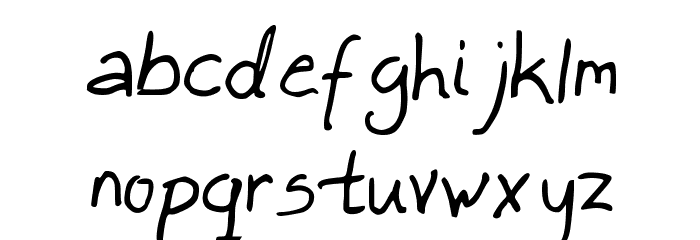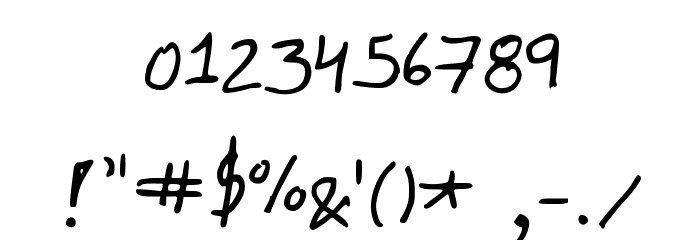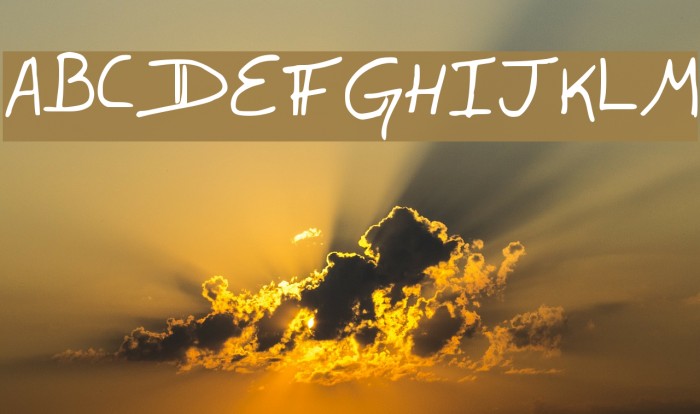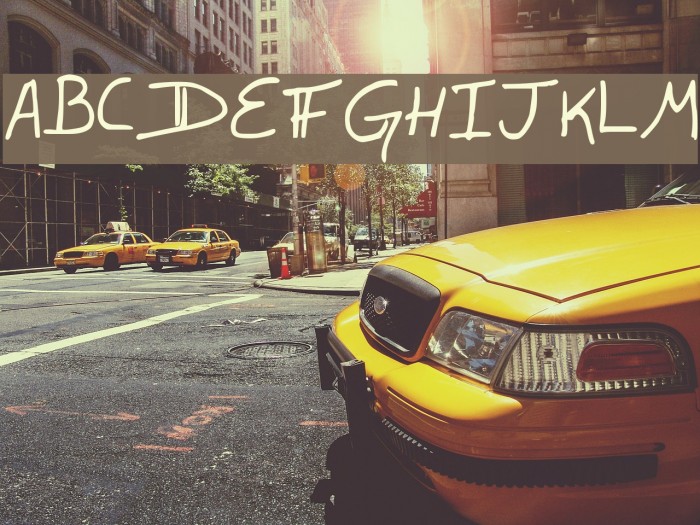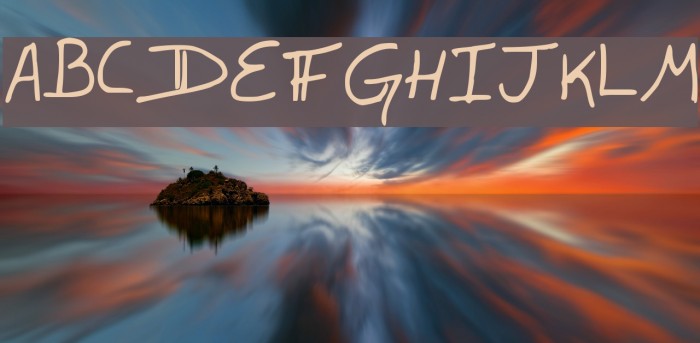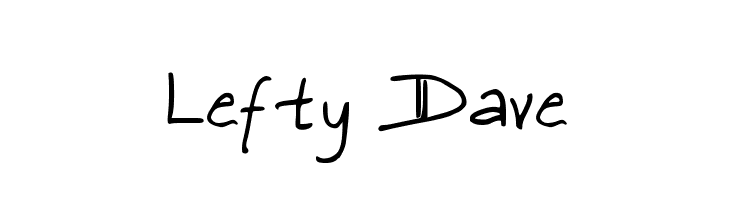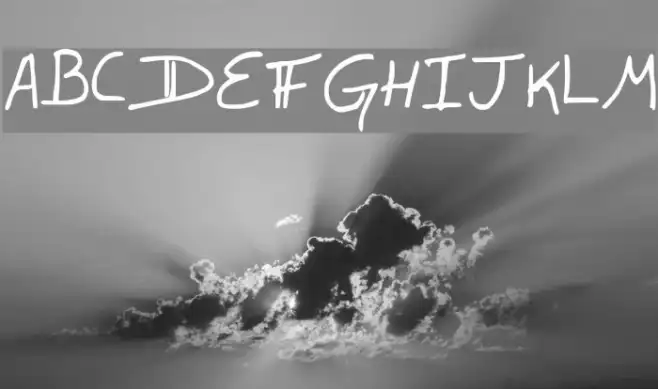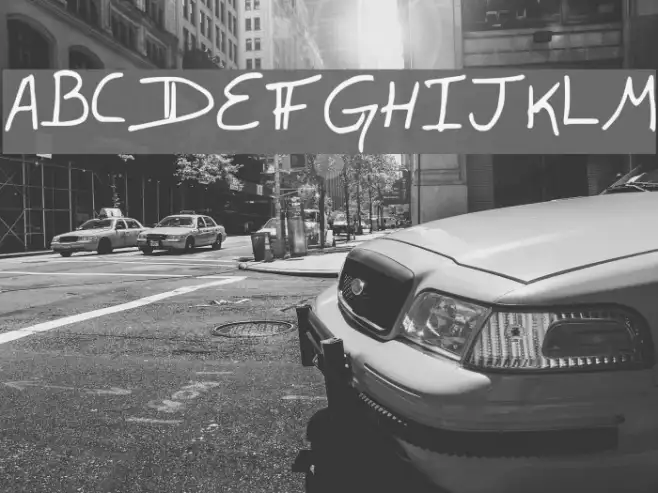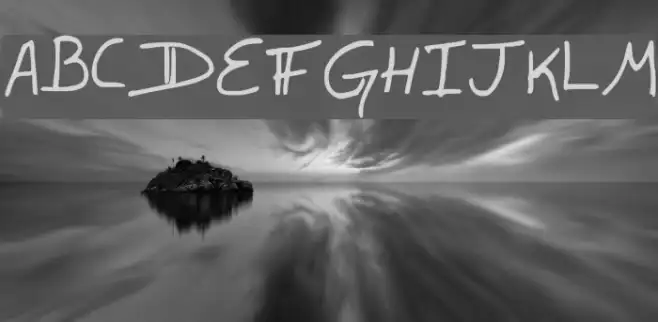
Lefty Dave Font
This font exudes a casual and playful handwritten style, characterized by its uneven strokes and slightly tilted letters, giving it a dynamic and personal touch. The uppercase letters are bold and slightly larger than the lowercase, maintaining a consistent flow throughout. The numbers and special characters follow the same handwritten aesthetic, adding to the font's charm. Its informal appearance makes it suitable for projects that require a personal or creative touch, such as greeting cards, invitations, or artistic branding. The font's unique style captures attention while remaining legible, making it versatile for various design needs.
A casual, playful handwritten font with dynamic, uneven strokes.
- Proposed Projects: Ideal for greeting cards, invitations, artistic branding, and creative projects.
- Overall Style: Casual, Playful
- Use Case: Headlines, Artistic branding, Creative projects